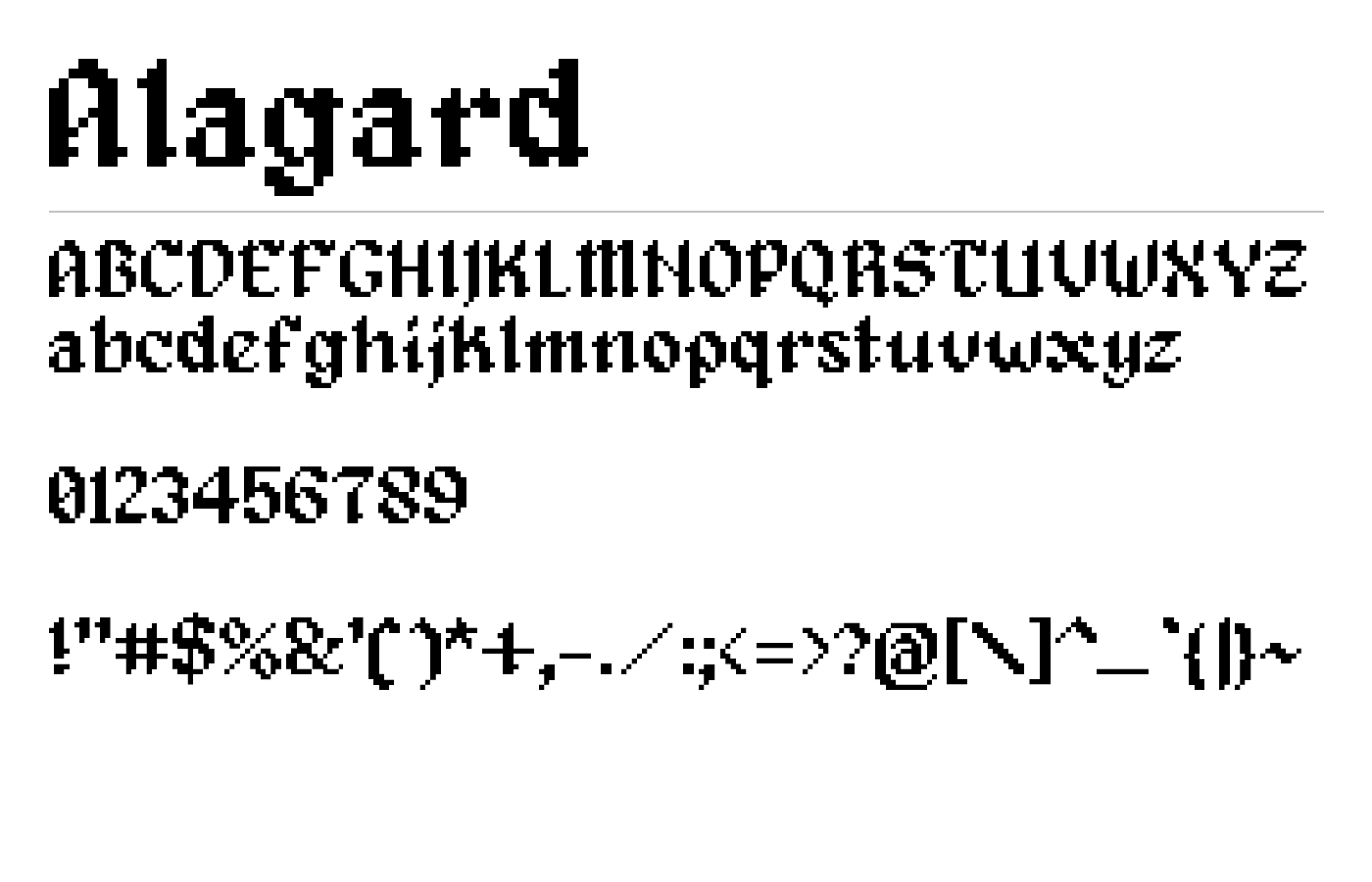
Alagard is a pixelated serif font with a retro, blocky appearance reminiscent of early computer or video game typography. It has a regular weight and normal width, featuring sharp, stepped edges and a distinct old-school digital style that combines vintage charm with a tech-inspired vibe. This font is ideal for projects seeking a nostalgic, arcade-inspired look, such as game interfaces, pixel art designs, or digital-themed branding and headlines.
Alagard Font
About Alagard Font